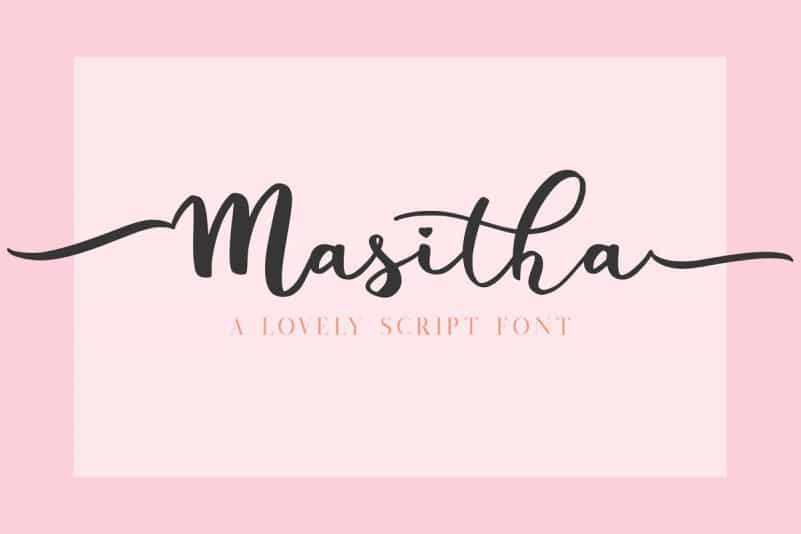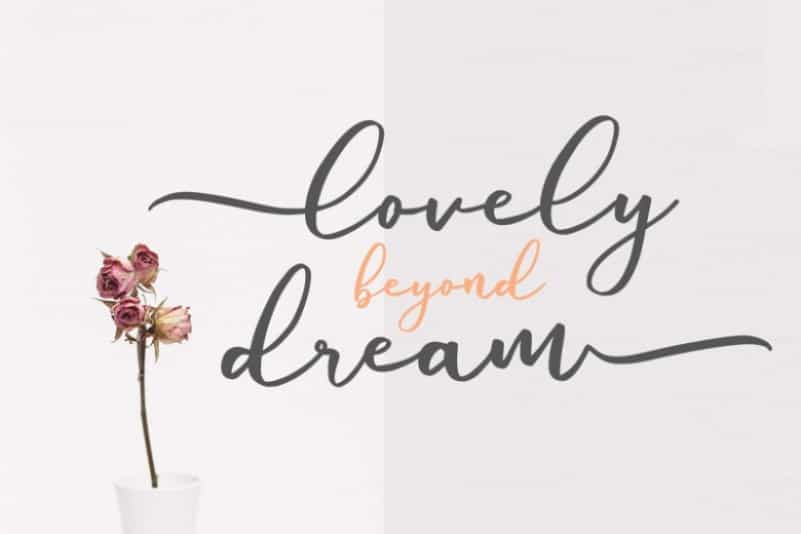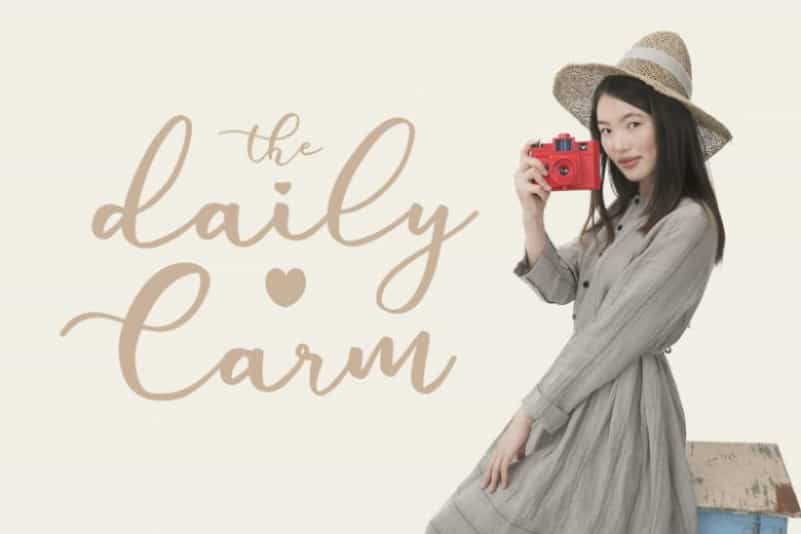
Introducing Masitha Font. Masitha – A Lovely Script Font is a handwritten script font that is based on the expression of real handwriting. Masitha – A Good Script Font will be perfect for fashion, e-commerce brands, blogs that are in trend or any business which wants to look high-class and stylish.